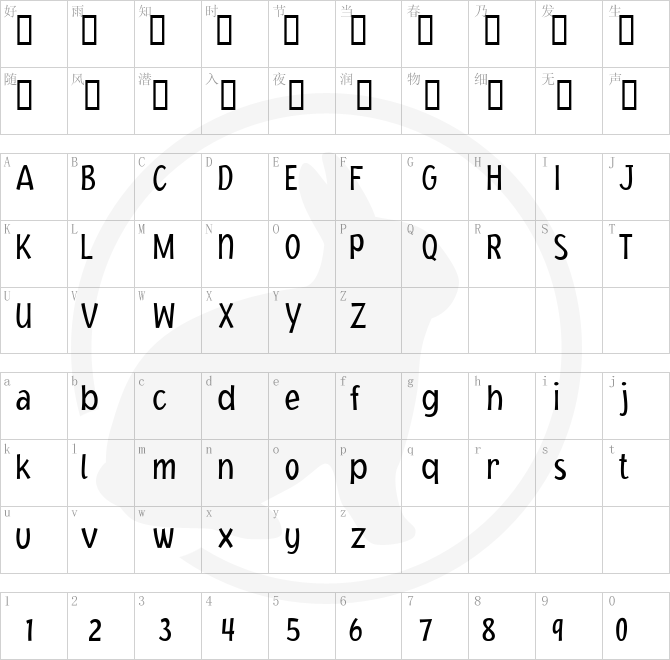
- Font Name:Jacoby Cond ICG
Jacoby-Cond-ICG-Light.ttf is a very beautiful artistic font, Jacoby-Cond-ICG-Light.ttf is widely used in the design and printing of various books and pictures,Jacoby-Cond-ICG-Light.ttf has a strong visual impact,Jacoby-Cond-ICG-Light.ttf is a commonly used font in newspapers, magazines and books, and is used in posters, e-commerce Poster design, store design, logo design, font design and other fields.Jacoby-Cond-ICG-Light.